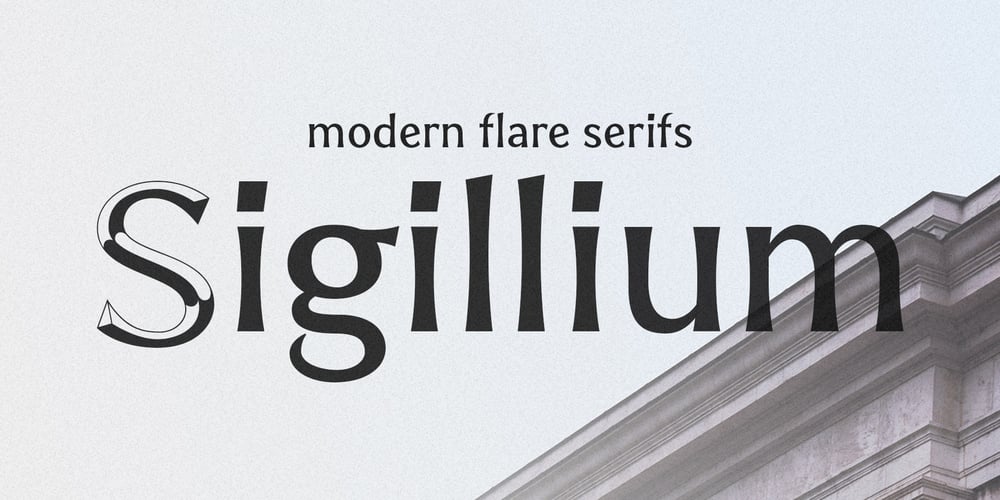
Sigillium Font Family was designed by Anastasia Averina and published by ave. Sigillium contains 4 styles and family package options. Sigillium is a flare serif typefaces, which inspired by early XX centuries sign painting advertising. It has strong historical nature. Letters proportions are very closed to the Roman Capital Letters. Sharp flare serifs endings give special medieval style to the typeface.Sigillium includes: 4 types in Upper- and Lowercases Each style contains more than 250 glyphs which support Latin, Western European, Central European languages (Cyrillic is also included) Files description: regular, carved empty, – not filled 2 styles carved with shadow, – different “light” directions Hope you are enjoying using Sigillium. Please do not hesitate to ask me any questions about the product.(c) Photo credit – Unsplash